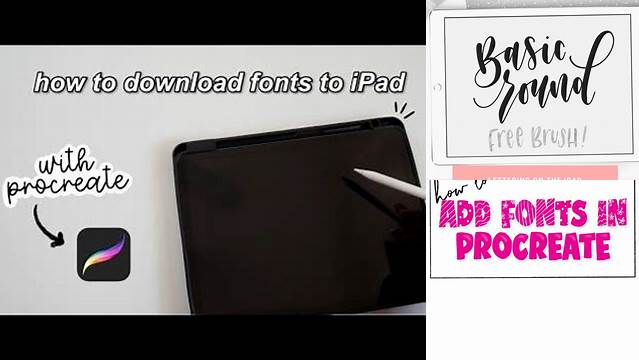
Free Procreate Fonts For IPad: Best Downloads In 2024
Are you looking to elevate your Procreate artwork with stunning typography without spending a dime? Well, you're in luck! The world of free fonts is vast and varied, offering a treasure trove of options to enhance your designs. Let's dive into the best places to find these gems and how to get them onto your iPad for use in Procreate.
Where to Find Free Fonts
- Google Fonts: This is a goldmine! Google Fonts offers a huge library of open-source fonts that are completely free for personal and commercial use. The best part? They're super easy to download and install.
- Font Squirrel: Font Squirrel handpicks free fonts that are also commercially licensed. This means you can use them in your projects without worrying about copyright issues. Their website is easy to navigate, making it simple to find the perfect font for your needs.
- DaFont: DaFont is a classic resource for free fonts. While the quality can vary, you can find some real gems if you're willing to dig a little. Just be sure to check the license for each font, as some are only free for personal use.
- Creative Market: Keep an eye on Creative Market's free goods section. They often offer free fonts (and other design assets) that are typically premium items. It's a great way to snag high-quality fonts without spending any money.
- MyFonts: Similar to Creative Market, MyFonts sometimes offers free fonts as part of promotional deals. Sign up for their newsletter to stay informed about these opportunities.
Choosing the right font can make or break your design. Here are some tips to help you select the perfect font for your Procreate projects:
- Consider Your Project: What kind of project are you working on? A playful script font might be perfect for a children's illustration, but it wouldn't be suitable for a professional business logo. Think about the overall tone and message you want to convey.
- Legibility is Key: Make sure your font is easy to read, especially if you're using it for body text. Avoid overly decorative or stylized fonts that can strain the eyes.
- Pair Fonts Carefully: If you're using multiple fonts, choose fonts that complement each other. A good rule of thumb is to pair a serif font with a sans-serif font. Use font pairing websites for inspiration.
- Think About Hierarchy: Use different font sizes and styles to create a visual hierarchy. This helps guide the viewer's eye and makes your design more organized.
- Test It Out: Before committing to a font, test it out in Procreate. See how it looks at different sizes and with different colors. Make sure it works well with the rest of your design.
- Try deleting the profile and reinstalling it.
- Check if your iPad has any restrictions that prevent profile installation.
Best Free Fonts for Procreate
Selecting fonts can be overwhelming, so here are some recommendations of versatile and stylish free fonts that work wonders in Procreate:
- Oswald: A classic sans-serif, Oswald is perfect for headlines and body text. It’s clean, modern, and highly readable.
- Roboto: Another excellent sans-serif, Roboto offers a wide range of weights and styles, making it incredibly versatile.
- Montserrat: With its geometric design, Montserrat is a great choice for contemporary designs. It's clean and modern, making it suitable for logos, posters, and more.
- Lato: A sleek sans-serif font that exudes elegance and clarity, Lato is a fantastic choice for body text and headings alike. Its open forms and balanced strokes contribute to a highly readable and aesthetically pleasing design, making it an excellent option for various design projects in Procreate.
- Playfair Display: A beautiful serif font that adds a touch of elegance to any design. Playfair Display is perfect for headings and titles.
- Raleway: A graceful sans-serif that works well for both headings and body text. Raleway has a slightly feminine feel, making it ideal for designs that need a touch of sophistication.
- Open Sans: Designed with optimized readability in mind, Open Sans is a highly versatile sans-serif font suitable for a wide range of projects. Its clean lines and neutral appearance make it an excellent choice for body text, ensuring a comfortable reading experience on the iPad screen.
- Amatic SC: Amatic SC is a unique, hand-drawn-style font that adds a playful and informal touch to your designs. Its narrow letterforms and condensed design make it perfect for headings, posters, and other display purposes where you want to make a statement.
Finding the perfect font is like discovering the perfect brush – it can truly transform your artwork. With so many fantastic free fonts available, there’s no reason not to experiment and find the ones that best suit your style. So go ahead, download some fonts, install them on your iPad, and start creating amazing things in Procreate!